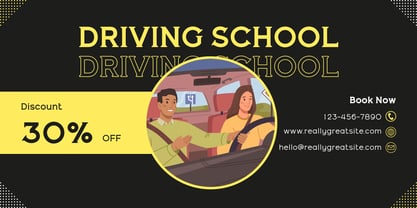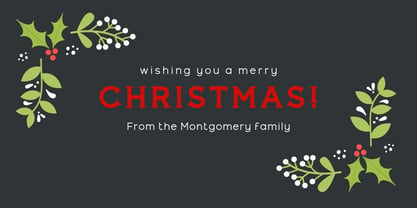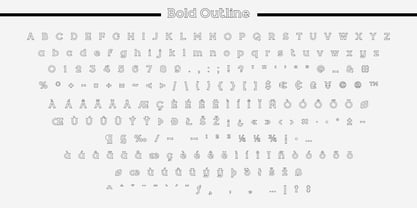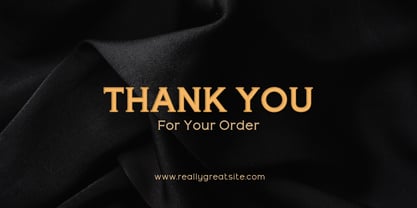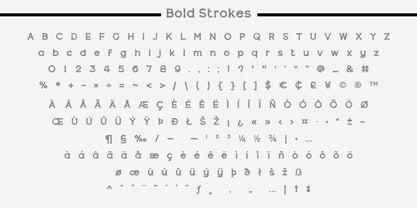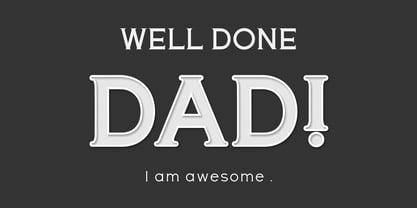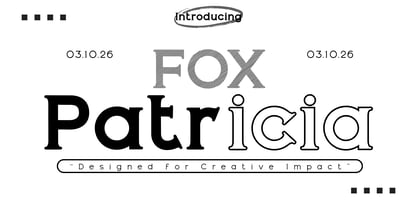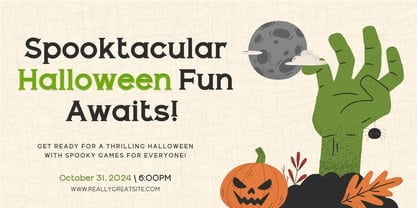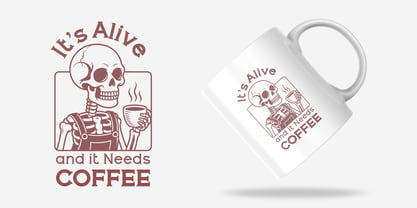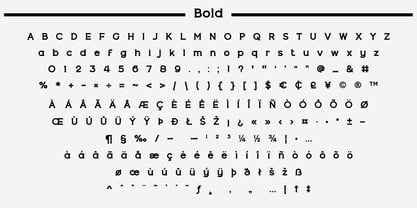
Fox Patricia
The Fox Patricia Font Family was designed by Rattana Rattanawan and published by Fox7. Fox Patricia contains 5 styles and family package options. More about this family
Fox Patricia is a bold and versatile display font family crafted to make your designs stand out with confidence. Featuring 5 unique styles—Regular, Thin, Bold, Bold Strokes, and Bold Outline—this font offers endless creative possibilities for both digital and print projects. Its modern yet playful letterforms combine strong geometric shapes with smooth curves, giving it a distinctive personality that works beautifully in logos, posters, packaging, headlines, social media graphics, and branding projects. With its variety of weights and decorative outlines, Fox Patricia allows you to experiment with layering, contrast, and hierarchy, making your text visually striking and memorable. Perfect for designers, entrepreneurs, and creatives looking for a font that balances modern impact with creative charm.